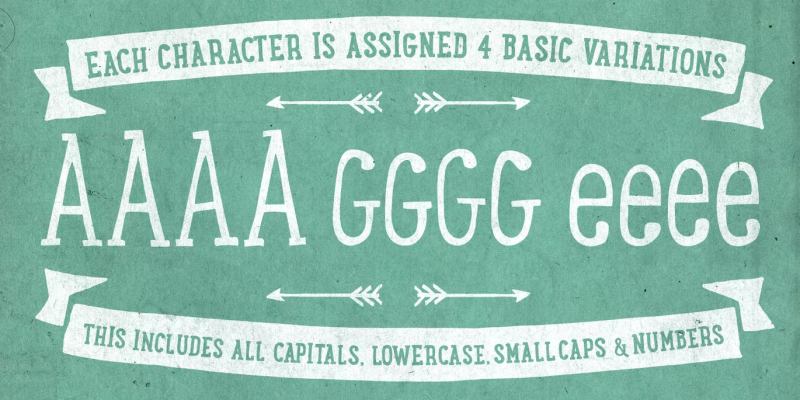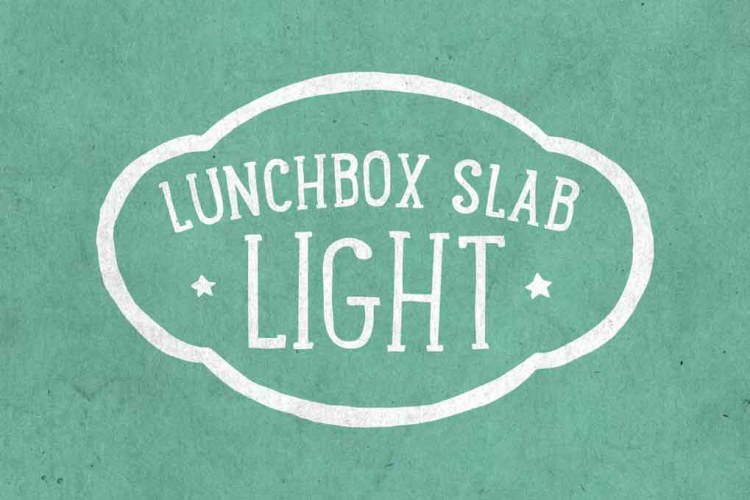
Lunchbox Slab Light Font
LunchBox Slab is the pair of LunchBox, a uniquely hand-drawn typeface that gives numerous customizable options and a fully authentic look. The serifs in LunchBox Slab ar…
LunchBox Slab is the pair of LunchBox, a uniquely hand-drawn typeface that gives numerous customizable options and a fully authentic look. The serifs in LunchBox Slab are simple blocks, with bulbous terminals on curved letters, which creates a unique effect.
Identical to its pair behind the scenes, LunchBox Slab’s OpenType features allow access to over 1,500 different characters. Contextual alternatives give each letter 4 different character styles, all cycling through each other to ensure that no two letters ever show up together. There is also a custom set of small caps, each with 4 style variations as well. Stylistic alternatives give an extra hand-drawn flourish, loop and slight variation, also with 4 different styles per letter. Discretionary ligatures pertain to both regular all caps LunchBox as well as stylistic alternatives. It gives special letter combinations a unique interaction, giving your design a unique and personalized look without spending hours creating it and outlining your text. Included are also a set of swashes that also have four style variations to both the regular and stylistic alternatives, as well as lowercase letters with ascenders and descenders.
All of these options are available in Light, Regular and Bold.
LunchBox Slab Ornaments includes nearly 200 different graphics, flourishes, frames, catchwords, text breaks and arrows.